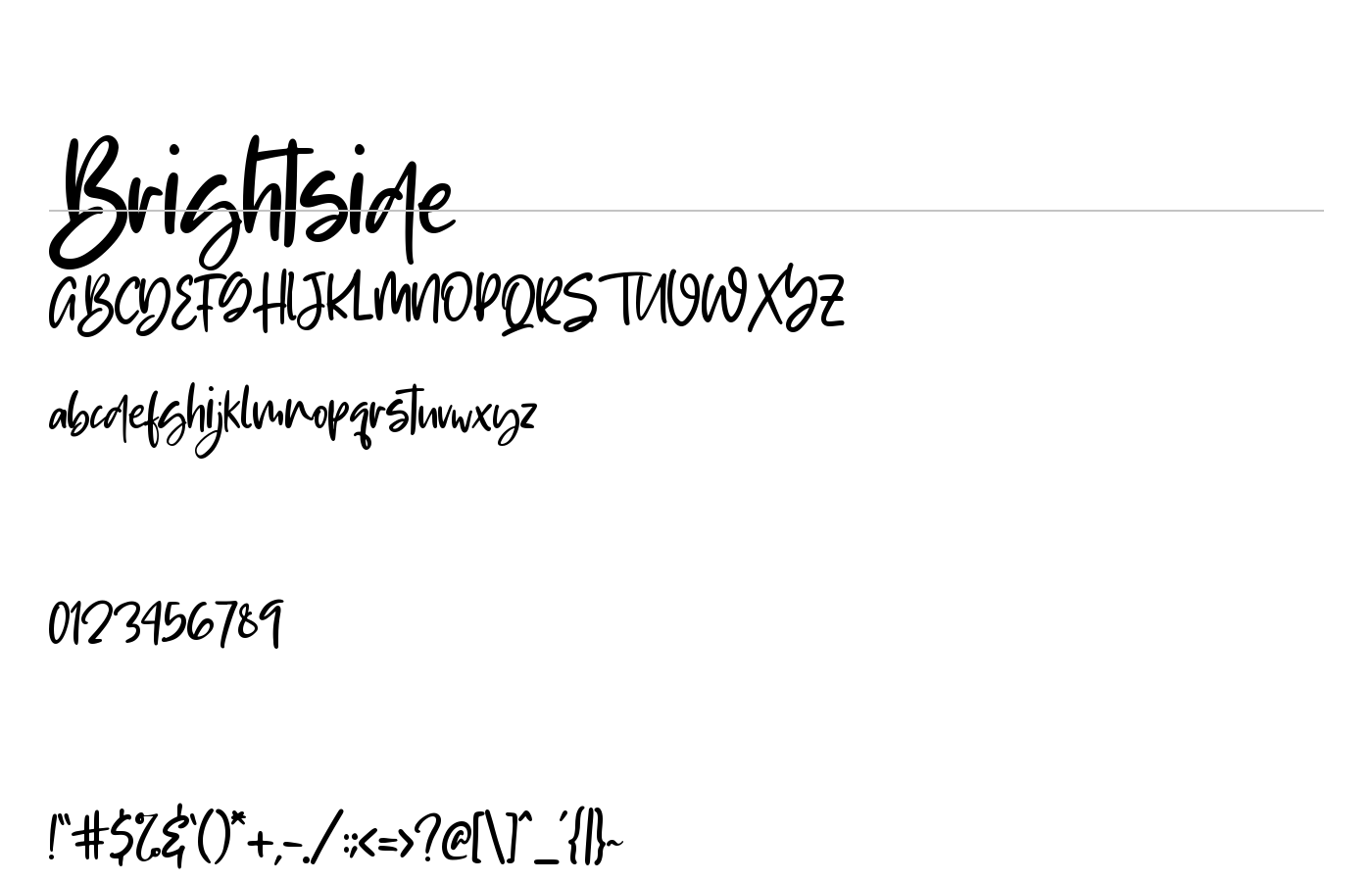
Brightside is a lively and expressive handwritten script font with a casual, playful feel. Its tall, narrow letterforms and varying stroke widths give it an energetic and personal touch, making it perfect for creative projects, informal branding, and eye-catching headlines that want to convey friendliness and approachability. This font works well where a fun, modern, and handwritten style is desired to add personality and warmth.
Brightside Font
About Brightside Font
| Font family | Brightside Font |
| Designer | Dimas Prasetyo |